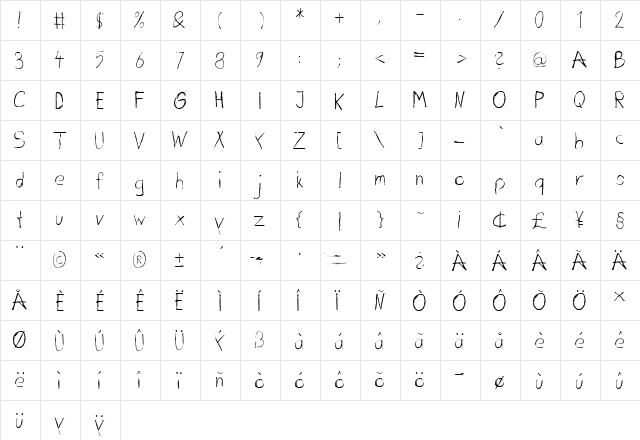
dirtyDeoHandInk Regular
| Foundry | Manuel Viergutz |
| Designer | Manuel Viergutz |
Design Context for dirtyDeoHandInk Typeface
dirtyDeoHandInk flows with the natural rhythm of handwritten lettering, making it ideal for designs that call for warmth and personal expression.
Font Pairing: Combine dirtyDeoHandInk with a simple geometric sans for maximum contrast — the tension between flowing curves and clean structure is a classic typographic pairing.
Pro Tip: Use dirtyDeoHandInk for short runs of text — names, titles, or taglines. Extended body copy in script faces tires the eye quickly.